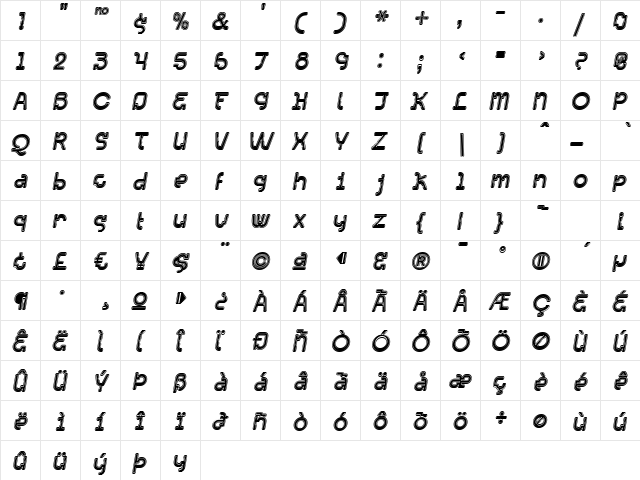
Acetone CollegiateOblique
Design Context for Acetone Typeface
Acetone offers clean, dependable letterforms without strong stylistic allegiance, making it a practical choice for designers who need flexibility. The slanted form adds forward momentum and visual energy.
Pro Tip: Try Acetone for annotation and caption copy alongside an upright companion — the contrast in angle creates a dynamic but ordered typographic system.